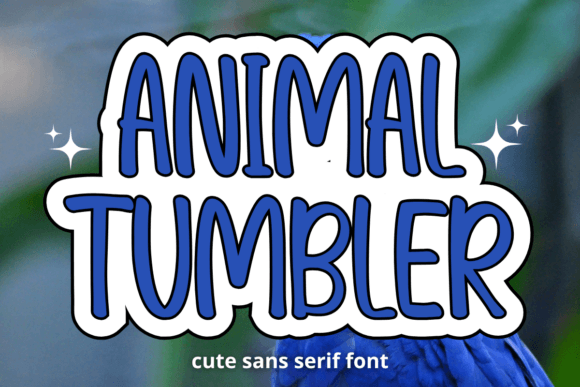
The Joy of Animal Tumbler: A Fun and Versatile Font for Creative Projects
I still remember the time I was working on a project for a children’s book, and I just couldn’t find the right font to match the playful tone of the story. The client wanted something that would appeal to kids and make the book feel approachable and fun. That’s when I stumbled upon Animal Tumbler, a lively sans-serif font that instantly brought a smile to my face. With its rounded edges and playful letterforms, it was the perfect fit for the project.
An Honest Review of Animal Tumbler
What I Love About Animal Tumbler ✨
- ✅ Its versatility: Animal Tumbler can be used for a wide range of projects, from branding and packaging to posters and social media graphics.
- ✅ The whimsical touch: The font’s playful letterforms and rounded edges add a sprinkle of fun to any design.
- ✅ Easy to read: Despite its playful nature, Animal Tumbler is surprisingly easy to read, even at small sizes.
- ✅ Highly customizable: With OpenType features and glyphs, you can customize the font to fit your project’s needs.
- ⚠️ Limited use for formal projects: Animal Tumbler is best suited for creative and playful projects. It may not be the best choice for formal or professional projects.
- ⚠️ Some letters may appear too similar: At small sizes, some letters may appear too similar, which can make reading more difficult.
The Backstory of Animal Tumbler
Animal Tumbler was designed by a team of creatives who wanted to create a font that would bring a sense of playfulness and whimsy to any design. Inspired by the world of animals and the joy of tumbling, the team set out to create a font that would be both fun and versatile. With its rounded edges and playful letterforms, Animal Tumbler is the perfect fit for any project that needs a touch of cheerfulness and creativity.
| What is Animal Tumbler? | Animal Tumbler is a lively sans-serif font with a playful and whimsical feel. |
| Does Animal Tumbler support OpenType features? | Yes, Animal Tumbler supports OpenType features, including glyphs and stylistic alternates. |